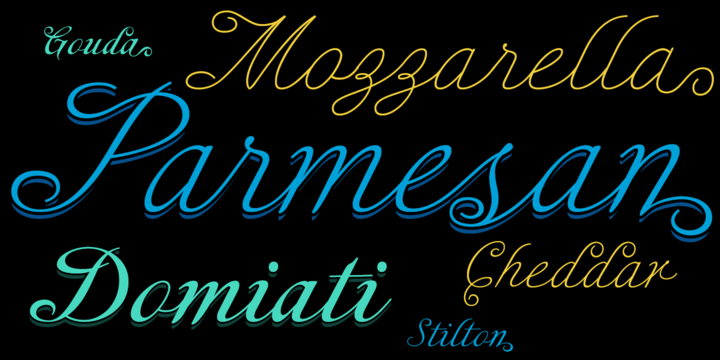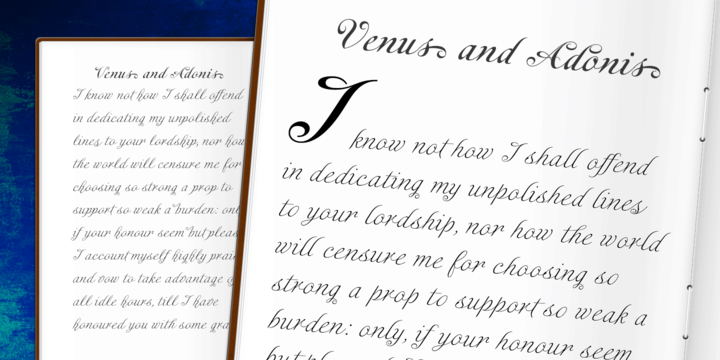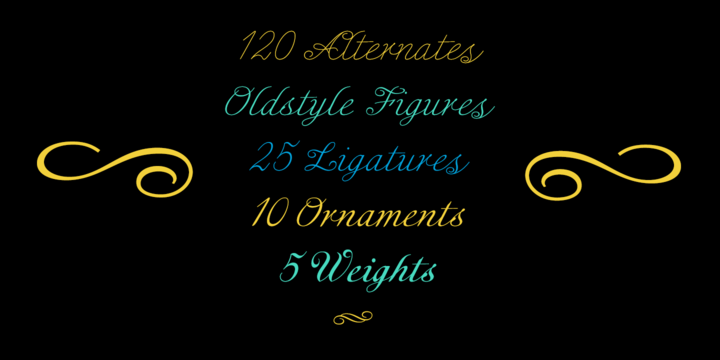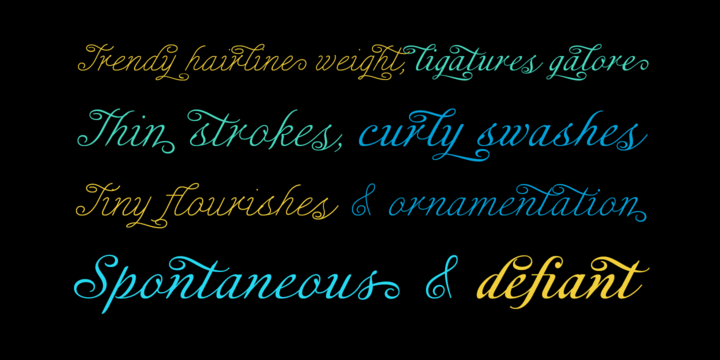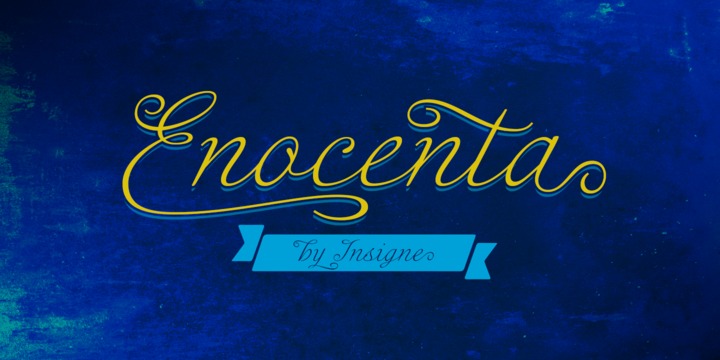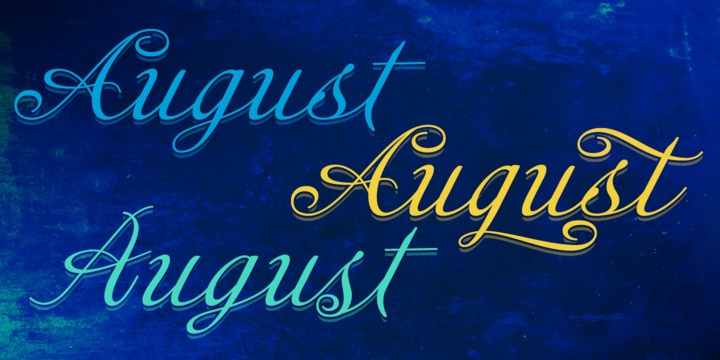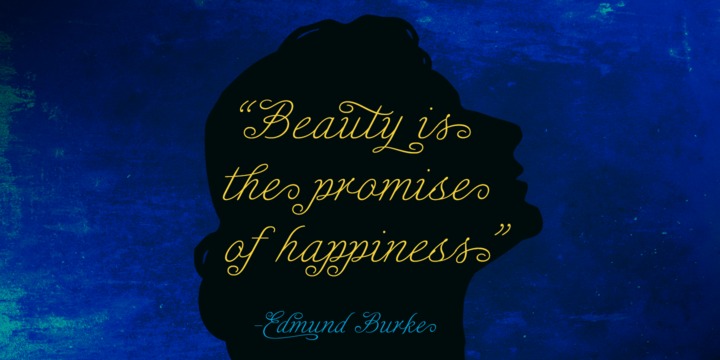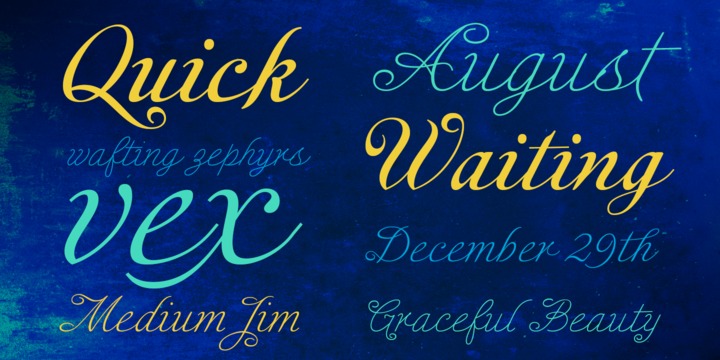
Enocenta Font Family
Enocenta is fully featured script face. Like a wild, untamed beauty in the moonlight, Enocentaís flowing calligraphy dances across the page. This contemporary typeface is not slavishly devoted to convention, and instead it defies it repeatedly.
The face has bit more character than most high contrast script faces and attracts your readers eye.
This spicy and flavorful collaboration between Jeremy Dooley and Cecilia Marina Pezoa. Enocenta is a five weight script typeface that offers a variety of options for you to design beautiful things. Enocenta is friendly and warm, and it’s hairline weight is simple and clean while its bold is strong and draws attention.